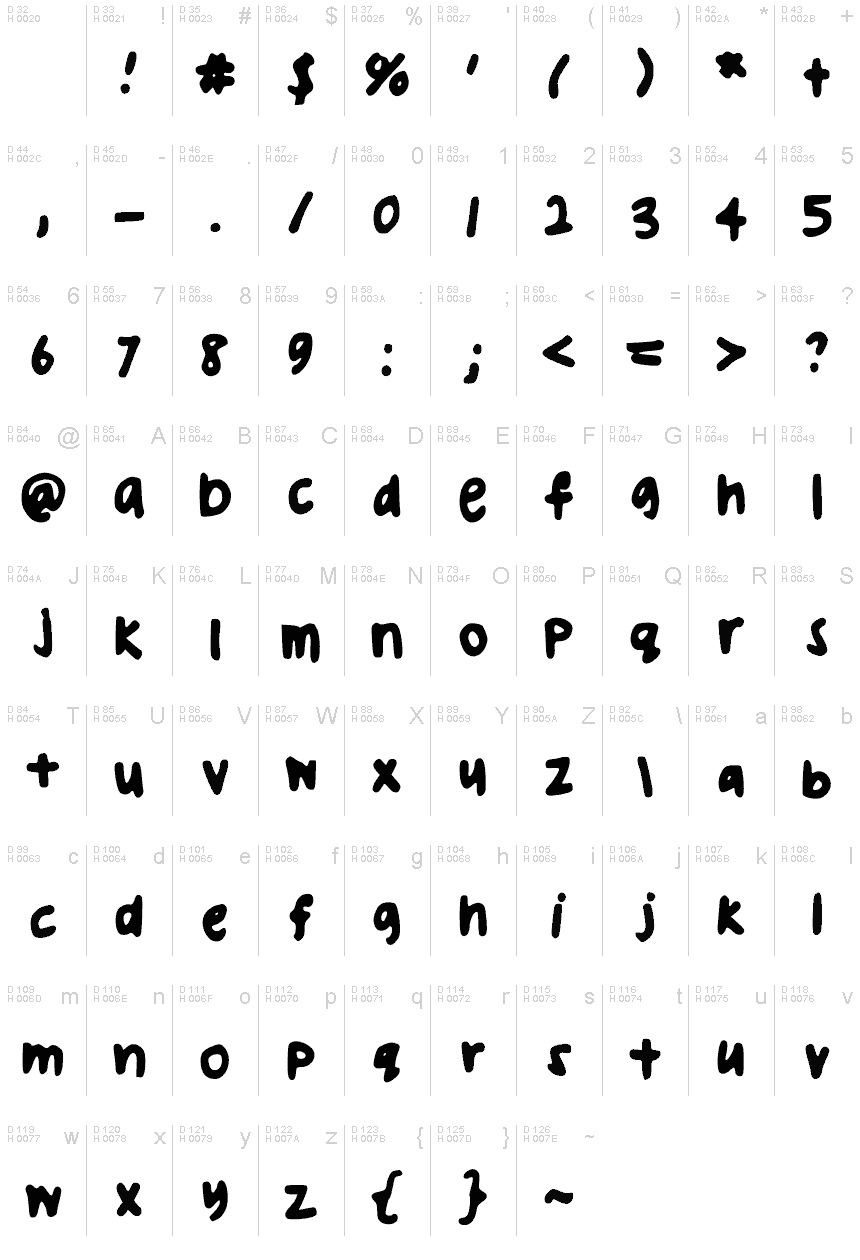
uglyhandwriting2
Uglyhandwriting2 emerges as a bold handwritten font that embraces its imperfections to deliver a raw and authentic character. With its uneven lines and playful distortions, this font exudes an aesthetic that is both uniquely casual and strikingly impactful. The bold weight of Uglyhandwriting2 makes it stand out, ensuring that messages crafted in this typeface capture attention with their undeniable presence.
The charm of Uglyhandwriting2 lies in its ability to convey a personal touch, reminiscent of a hasty note or an intimate message scribbled in the margin. This makes it an excellent choice for projects that require a touch of humanity and personality, from creative advertising campaigns to distinctive branding elements.
Whether applied to digital graphics or printed materials, Uglyhandwriting2 holds the potential to add depth and character to any creative endeavor. Its suitability spans across various mediums, making it versatile for designers who wish to inject a sense of individuality into their work.
The charm of Uglyhandwriting2 lies in its ability to convey a personal touch, reminiscent of a hasty note or an intimate message scribbled in the margin. This makes it an excellent choice for projects that require a touch of humanity and personality, from creative advertising campaigns to distinctive branding elements.
Whether applied to digital graphics or printed materials, Uglyhandwriting2 holds the potential to add depth and character to any creative endeavor. Its suitability spans across various mediums, making it versatile for designers who wish to inject a sense of individuality into their work.